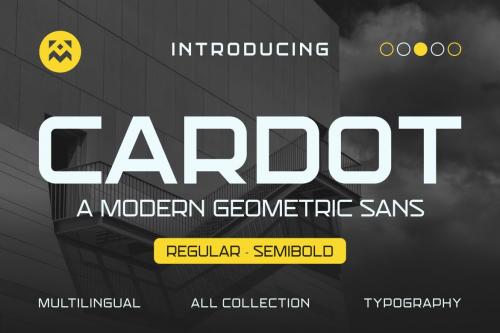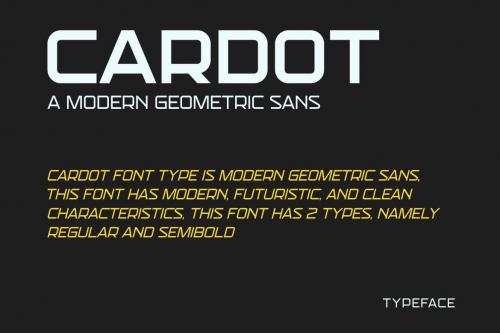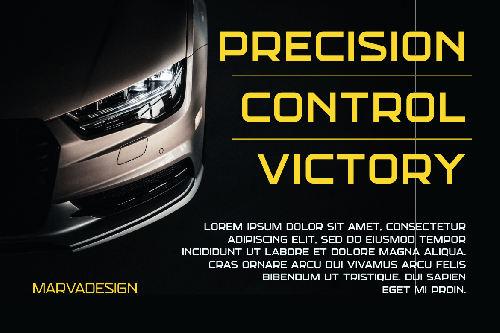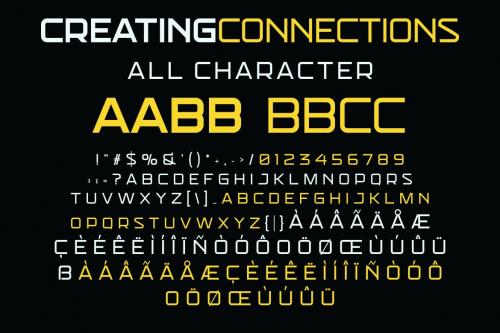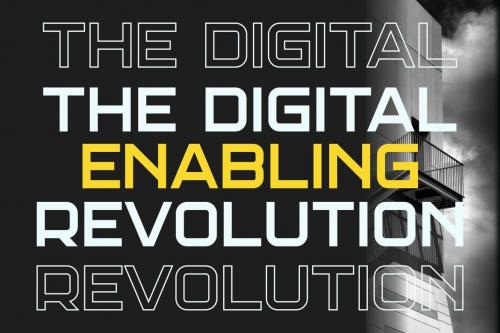
卡尔托字体
Cardot Font
Introducing our new product **Cardot Font** - Modern Font is a bold and authentic display font. The font is suitable for any branding project like logo,Template Design, Product and many more. outstanding in a wide range of contexts.
Introducing our new product **Cardot Font** - Modern Font
Cardot Font** - Modern Font is a bold and authentic display font. The font is suitable for any branding project like logo,Template Design, Product and many more. outstanding in a wide range of contexts.
* Uppercase
* Lowercase
* Multilingual